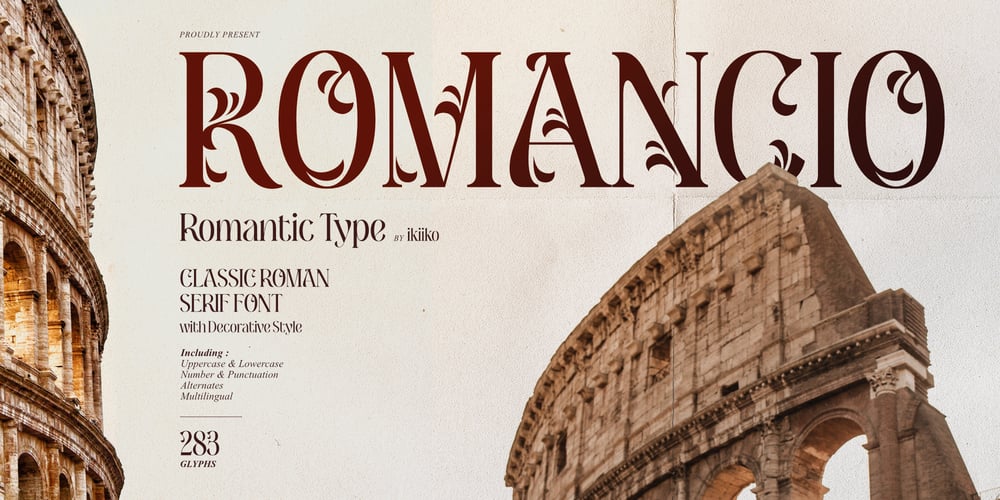
Romancio Font Family was designed by Wahyu Eka Prasetya, Andhika Pradana and published by IKIIKOWRK. Romancio contains 1 styles and family package options. Proudly present Romancio – Romantic Type, created by ikiiko.Romancio is a decorative serif typeface that inspired by the spirit of Roman design. A perfect choice for projects that call for a touch of elegance and originality. Elegant flourishes and delicate curves abound, which evokes the refinement of old Roman art. Each character is painstakingly designed to capture the elegance of classic Roman letterforms.